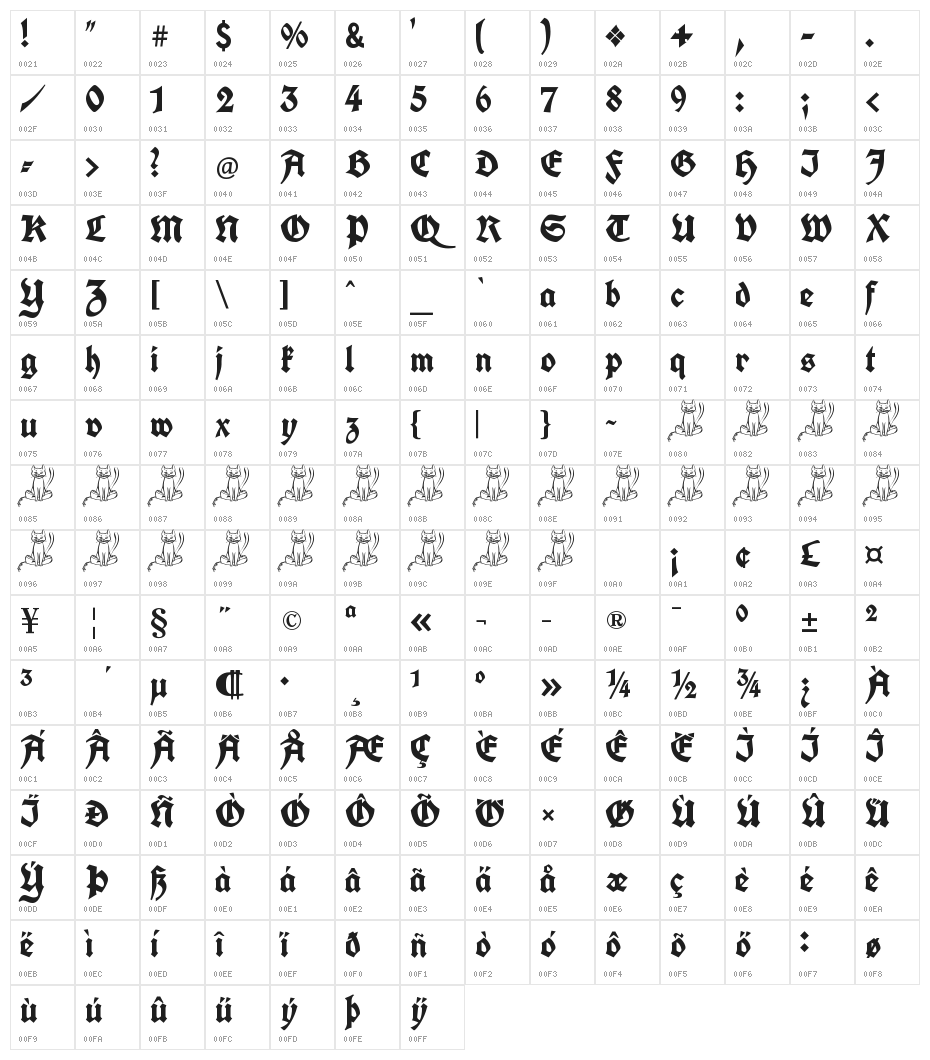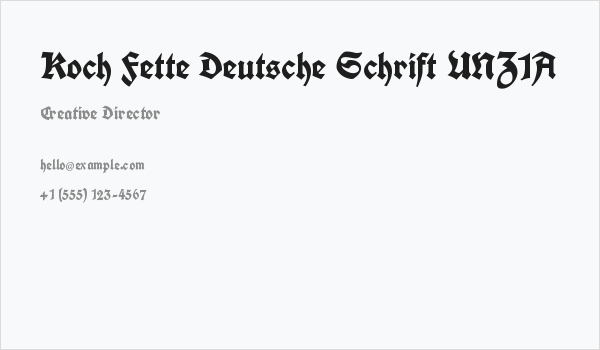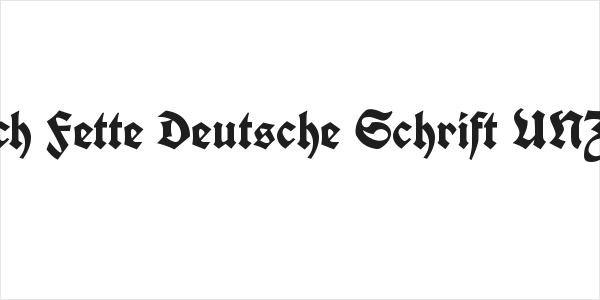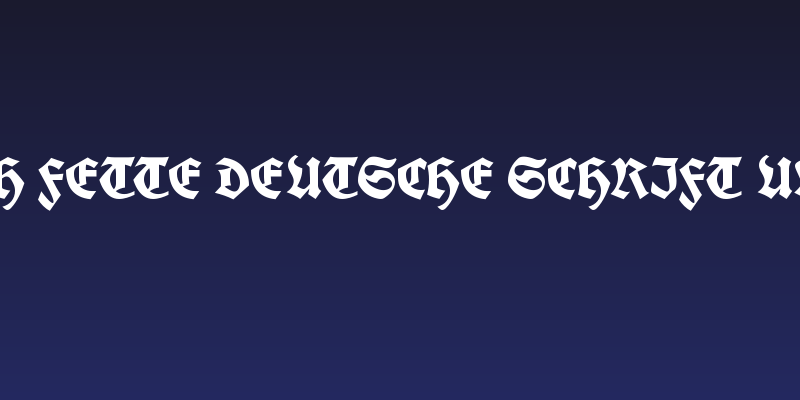
Koch Fette Deutsche Schrift UNZ1A Font
Koch Fette Deutsche Schrift UNZ1A Description
This font is a bold, blackletter typeface characterized by its dramatic and ornate style. The letters feature sharp, angular lines with intricate detailing, reminiscent of traditional Gothic script. The uppercase letters are particularly elaborate, with strong vertical strokes and pointed serifs. The lowercase letters maintain the same intricate style but with a slightly more flowing form. Numbers and special characters are equally bold and decorative, fitting seamlessly with the overall aesthetic. This font exudes a historical and authoritative presence, making it ideal for projects that require a touch of vintage elegance.
| Overall Style | Vintage, Decorative |
| Use Case | Logos, Headlines, Certificates |
| Proposed Projects | Ideal for historical documents, certificates, branding for luxury products, or any design requiring a vintage or Gothic aesthetic. |